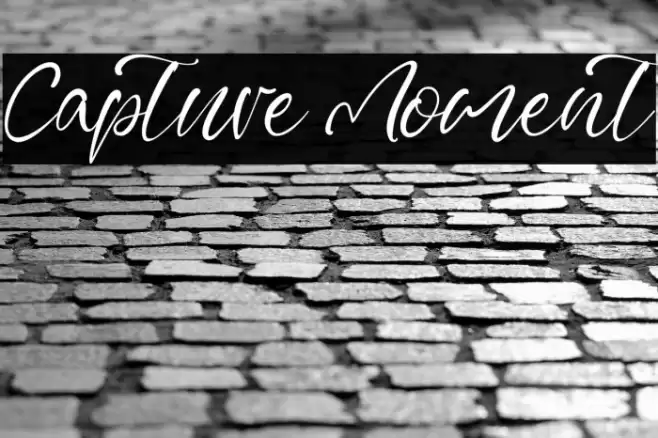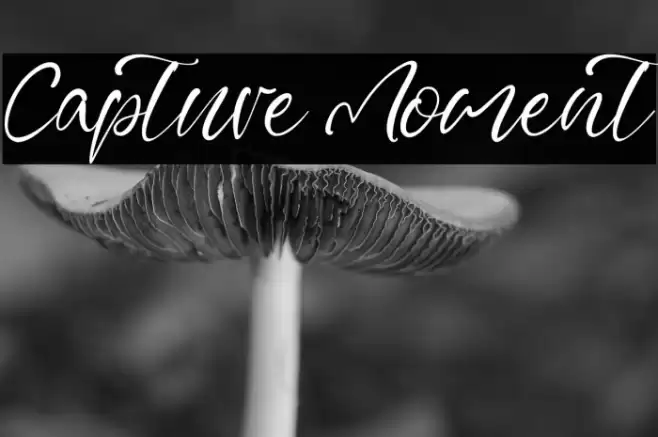
Capture Moment Font
Capture Moment Description
This font exudes a sophisticated and elegant script style, characterized by its fluid, cursive strokes and graceful curves. The uppercase letters are bold and sweeping, with a sense of movement that adds a dynamic quality. The lowercase letters maintain a consistent flow, enhancing readability while retaining an artistic flair. Numbers and special characters are crafted with the same attention to detail, ensuring a cohesive look across all elements. The overall design is reminiscent of handwritten calligraphy, making it suitable for projects that require a personal touch.
A sophisticated, elegant script font with fluid, cursive strokes from Regular fonts.
- Overall Style: Elegant, Artistic
- Use Case: Logos, Invitations, Decorative text